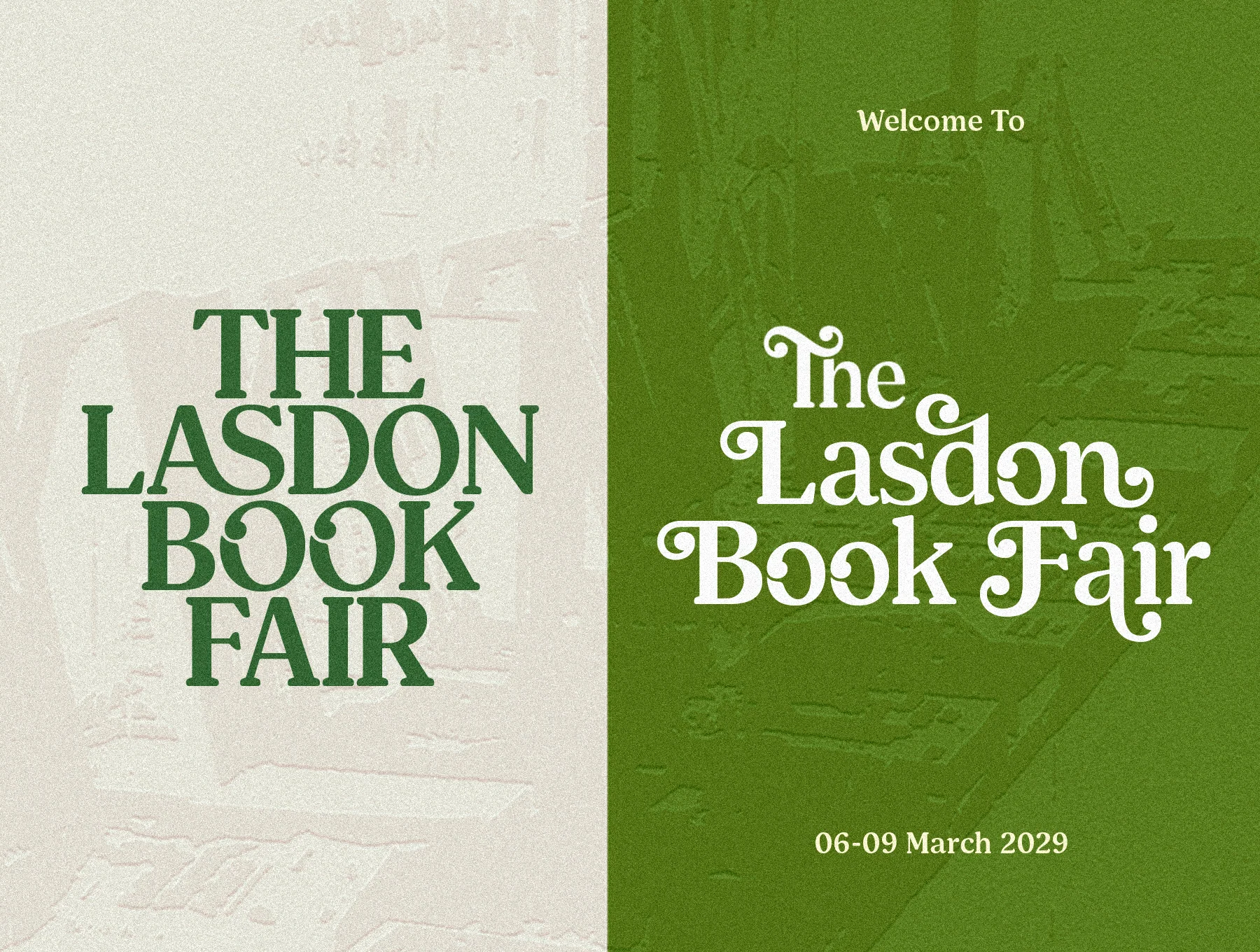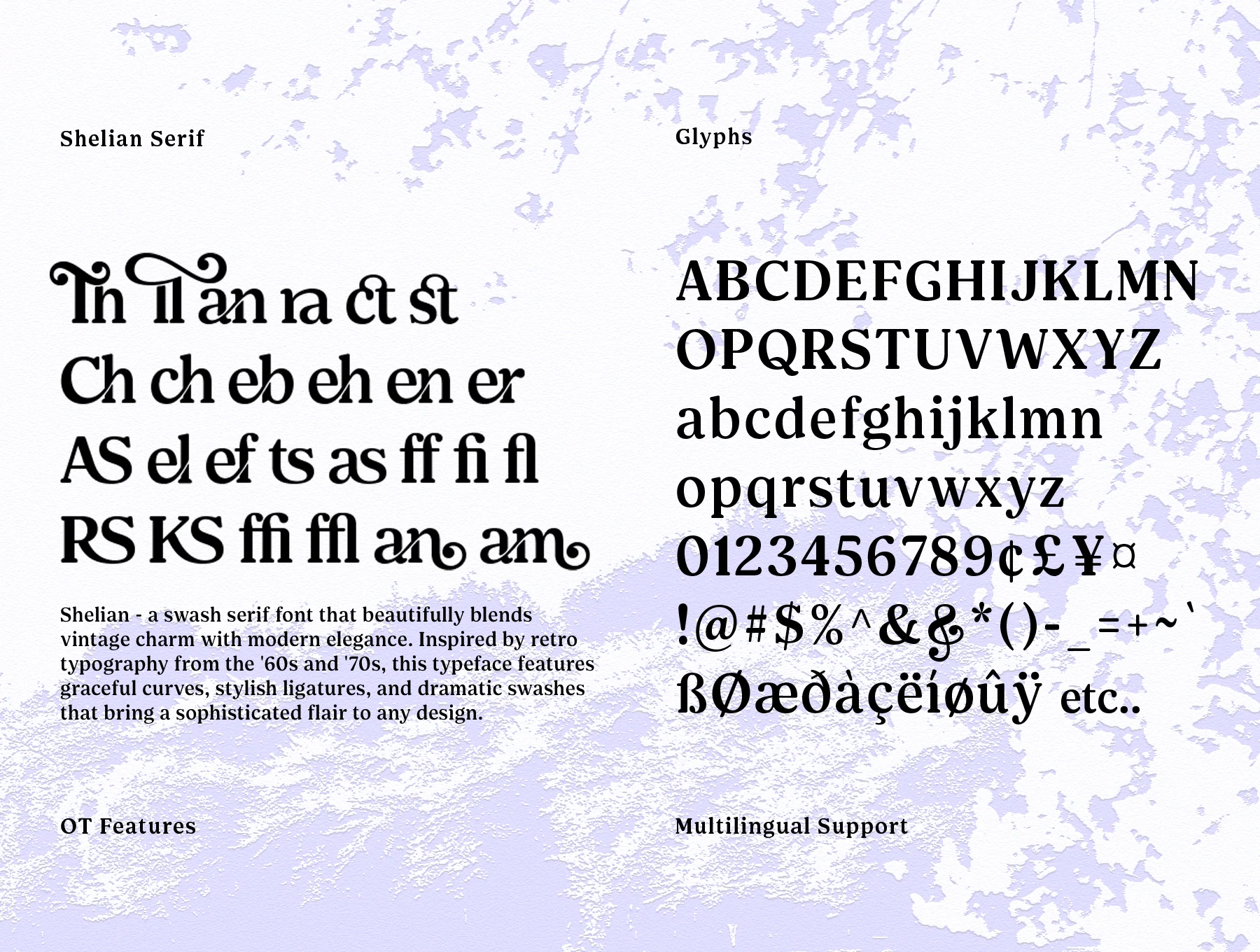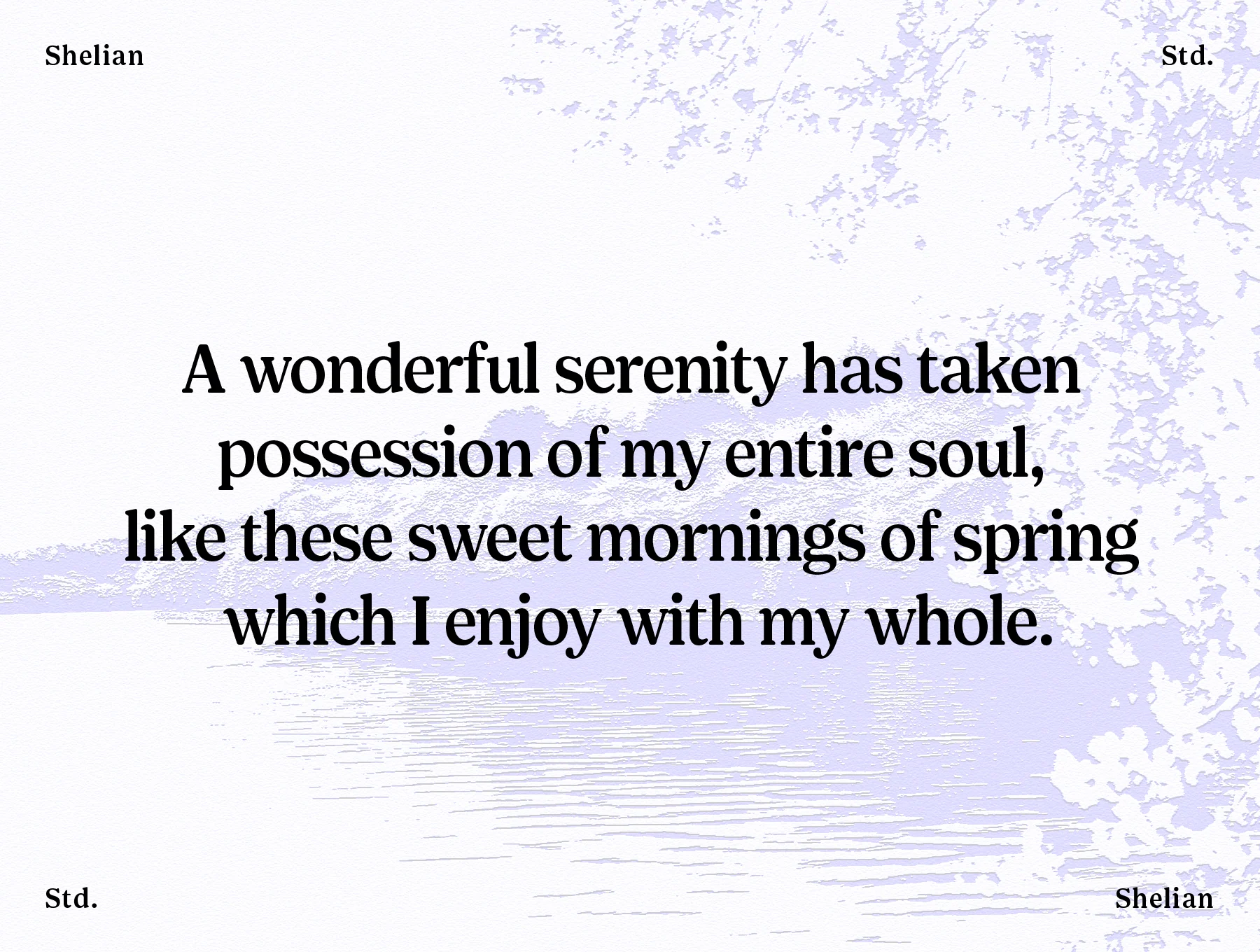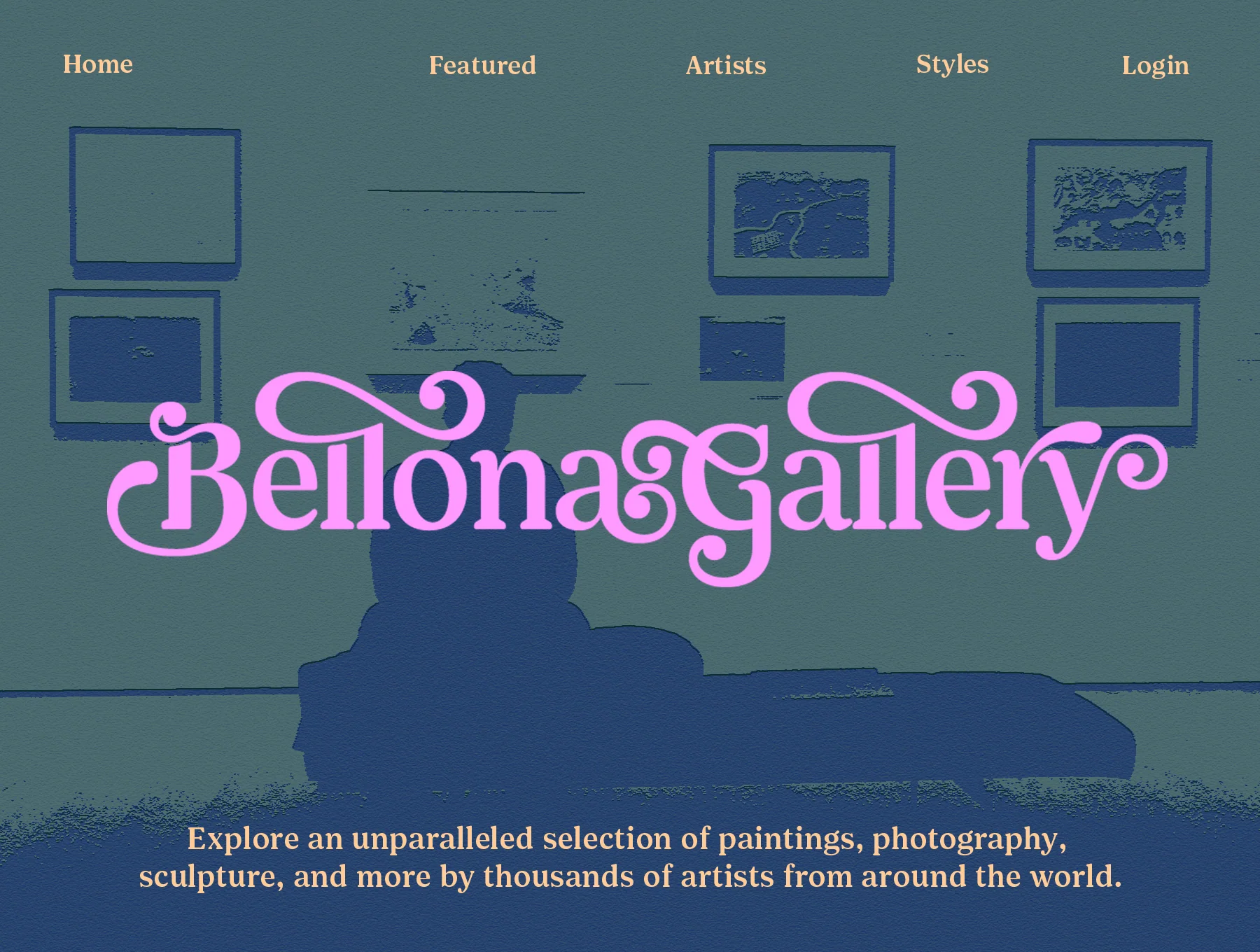
Shelian Typeface
An eye-catching swash serif typeface
Pair of font styles
OpenType capabilities
Ligatures, alternate glyphs, and swashes
Shelian is a bold swash serif blending retro warmth with contemporary grace. Influenced by 1960s–70s lettering, it offers 2 styles, 555+ glyphs, 230+ alternates, multilingual support, and PUA encoding. OpenType options include alternates, swashes, and ligatures, ideal for logos, invitations, packaging, and editorial design.